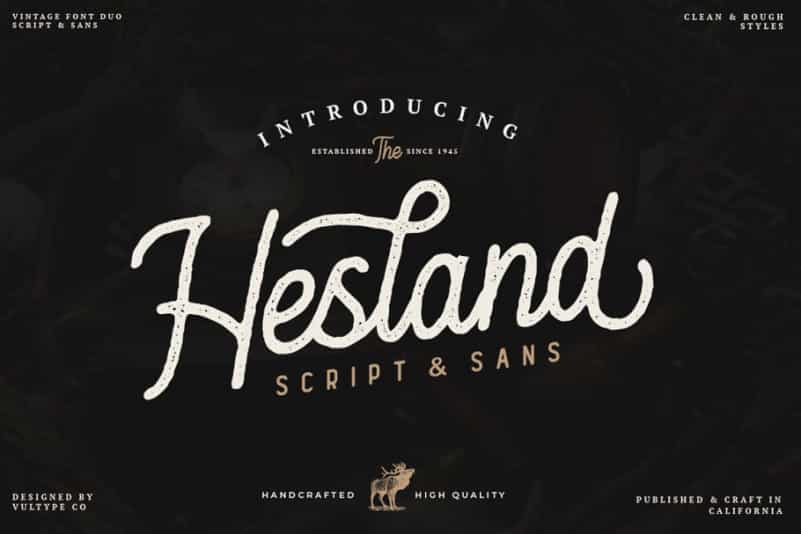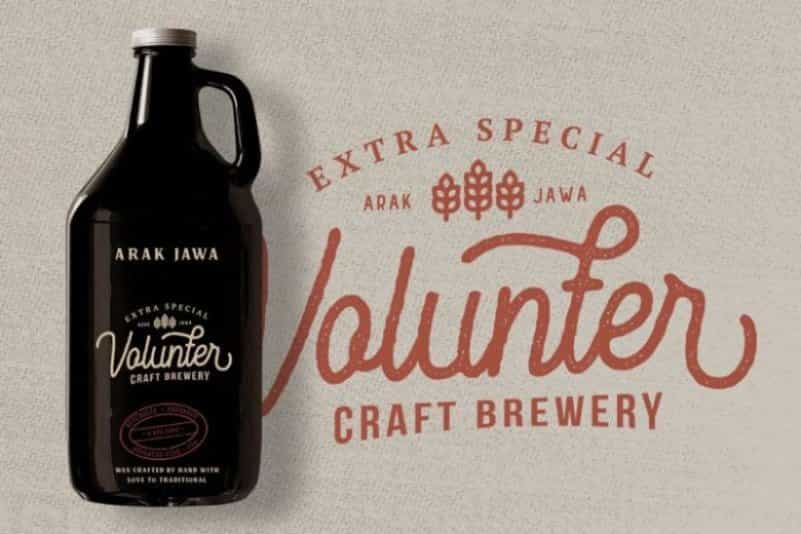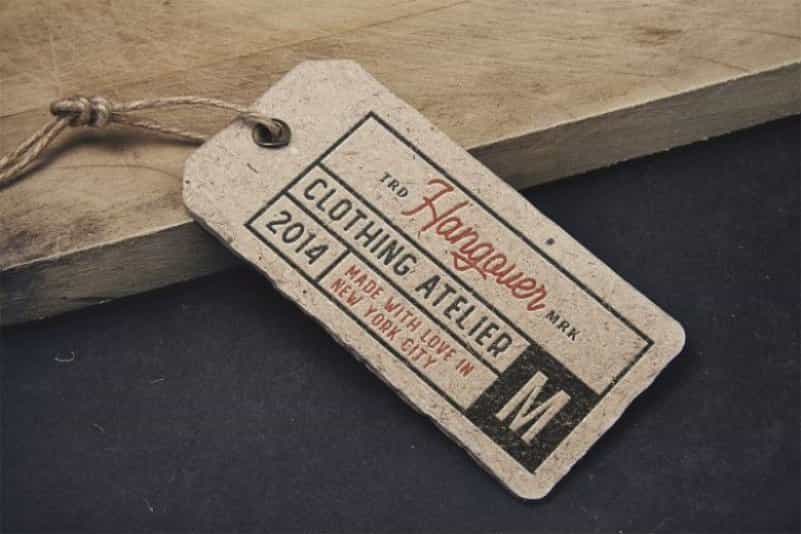
Introducing Hesland Font. Hesland Vintage Font Duo was influenced by the vintage old American which has two styles, Clean and Stamped. the script and sans serif this font are the two features that come with it. This typeface has a retro look with the stamps on each letter, which are quite stylish. perfect for Logotype, Branding Design, Vintage Logo Design, Digital Lettering Arts and any other vintage design needs.